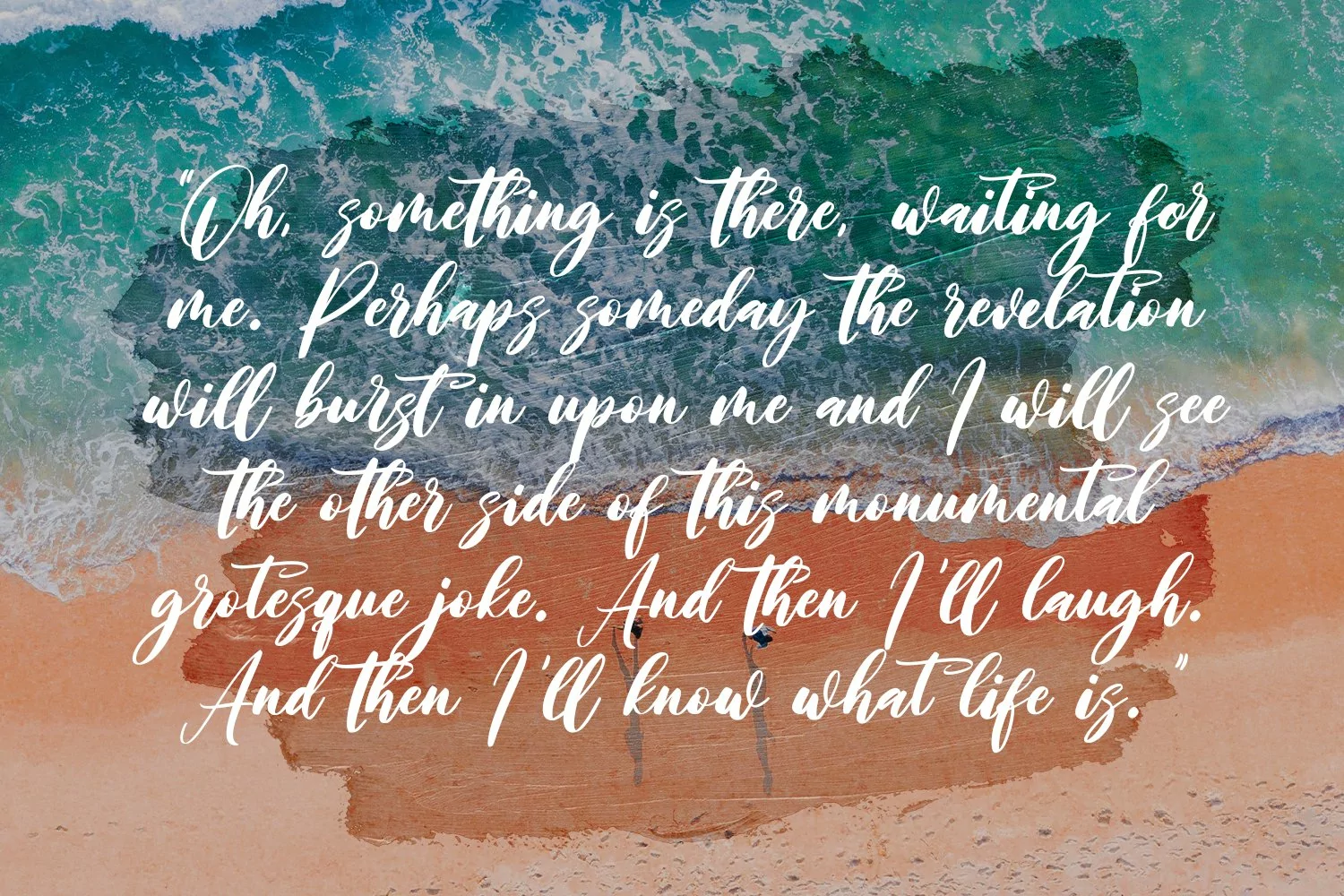
Bolivar Shore is a fancy modern script font. With bold high contrast stroke, fun character with a bit of ligaturess. To give you an extra creative work. Bolivar Shore font support multilingual more than 100+ language. This font is good for logo design, Social media, Movie Titles, Books Titles, a short text even a long text letter and good for your secondary text font with sans or serif. Make a stunning work with Bolivar Shore font.